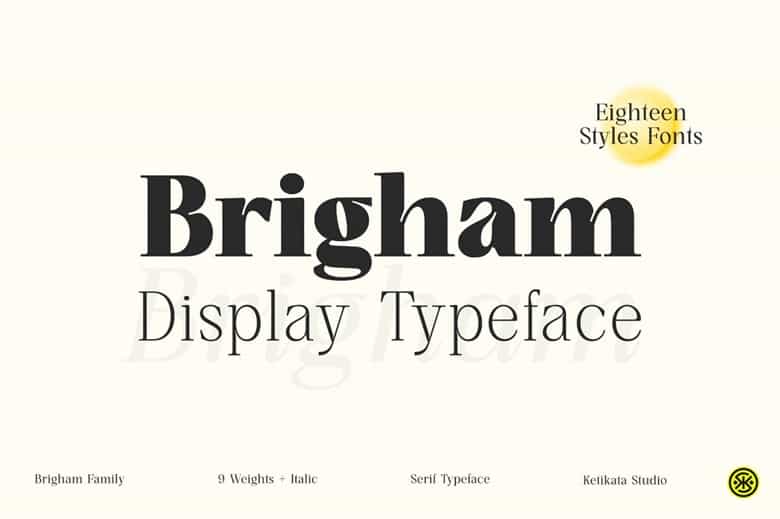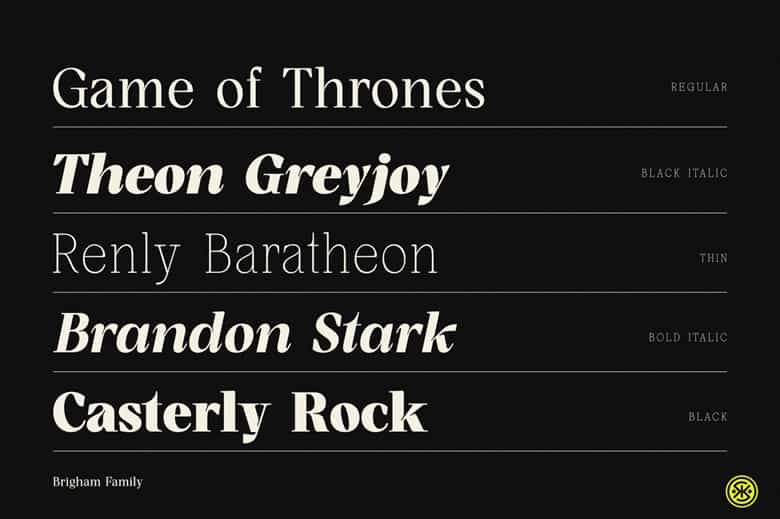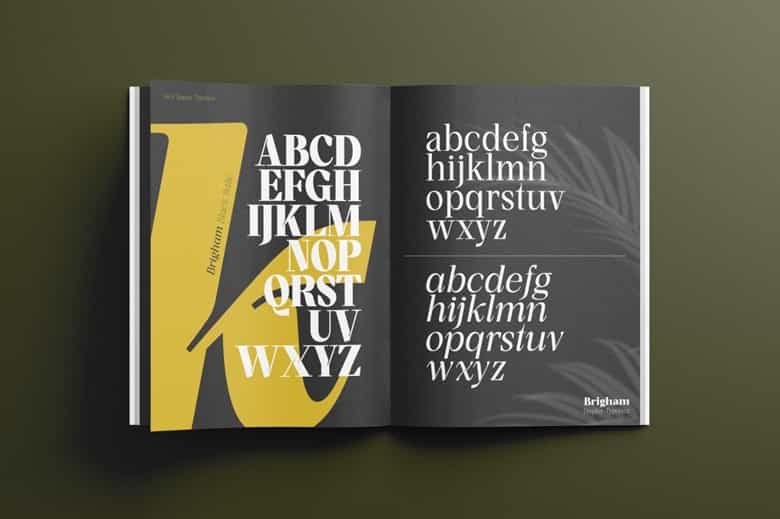
This is Brigham, a charming show serif font in the mood of 1980s visual appeal, inspired by Garamond and Times New Roman. We’re in an era driven by cinematic visuals, and this font is a perfect homage to the era — it’s perfect for projects that need just the right touch of nostalgic sophistication. Brigham’s style is wide,